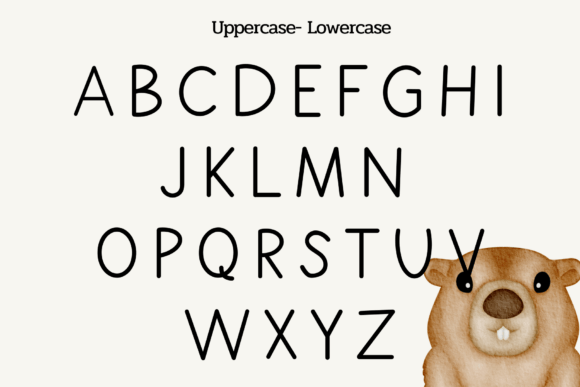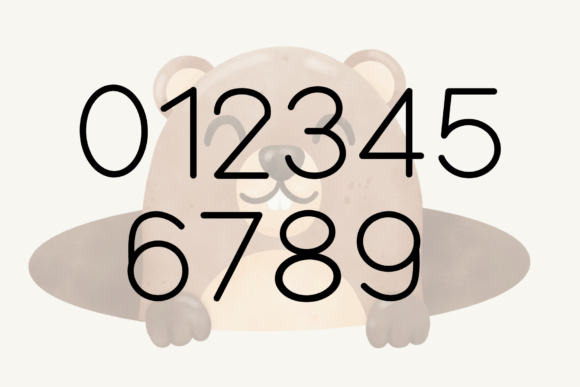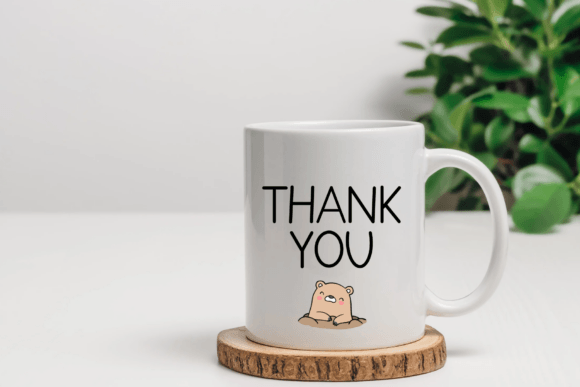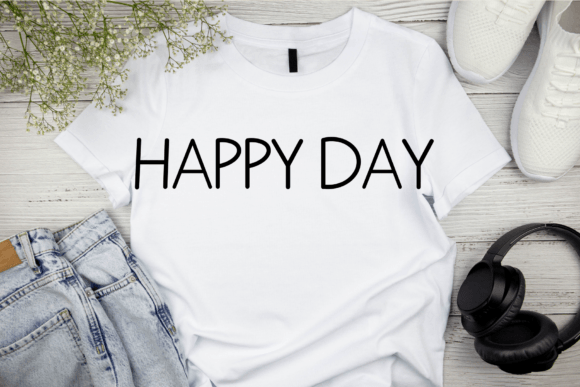
Celebrate Seasonal Charm with Groundhog Day Font
Are you looking for a font that can add a touch of whimsy and playfulness to your designs? Look no further than the Groundhog Day Font! This clean and playful handwritten font is perfect for creating greeting cards, event posters, classroom materials, and other creative designs with a fun and approachable vibe.
What is Groundhog Day Font?
Groundhog Day Font is a unique and charming font that features rounded, friendly letterforms. Its playful and approachable design makes it perfect for a variety of creative projects, from seasonal greeting cards to educational materials. The font is designed to bring a touch of whimsy and fun to your designs, making it ideal for crafters, designers, and educators.
Characteristics of Groundhog Day Font
The Groundhog Day Font has several characteristics that make it stand out from other fonts. Some of its key features include:
- Rounded letterforms: The font features rounded, friendly letterforms that give it a playful and approachable vibe.
- Clean design: The font has a clean and simple design that makes it easy to read and use in a variety of creative projects.
- Handwritten style: The font has a handwritten style that gives it a personal and unique touch.
- Versatile: The font is versatile and can be used in a variety of creative projects, from greeting cards to educational materials.
Uses of Groundhog Day Font
The Groundhog Day Font is perfect for a variety of creative projects, including:
- Greeting cards: The font is perfect for creating seasonal greeting cards, such as Groundhog Day, Valentine’s Day, and Christmas cards.
- Event posters: The font can be used to create eye-catching event posters for parties, festivals, and other events.
- Classroom materials: The font is ideal for creating educational materials, such as worksheets, posters, and activity sheets.
- Creative designs: The font can be used to create a variety of creative designs, such as social media graphics, blog posts, and website headers.
Benefits of Using Groundhog Day Font
Using the Groundhog Day Font in your creative projects has several benefits, including:
- Adds a touch of whimsy: The font adds a touch of whimsy and playfulness to your designs, making them more engaging and fun.
- Easy to read: The font is easy to read, making it perfect for use in educational materials and other designs where readability is important.
- Versatile: The font is versatile and can be used in a variety of creative projects.
- Unique: The font has a unique and charming design that sets it apart from other fonts.
Tips for Using Groundhog Day Font
Here are some tips for using the Groundhog Day Font in your creative projects:
- Use it for seasonal designs: The font is perfect for creating seasonal designs, such as Groundhog Day, Valentine’s Day, and Christmas designs.
- Experiment with colors: The font looks great in a variety of colors, so don’t be afraid to experiment and find the perfect color for your design.
- Pair it with other fonts: The font can be paired with other fonts to create a unique and interesting design.
- Use it for kid-friendly designs: The font is perfect for use in kid-friendly designs, such as children’s books, activity sheets, and educational materials.
The Groundhog Day Font is a unique and charming font that is perfect for adding a touch of whimsy and playfulness to your designs. Its rounded, friendly letterforms and clean design make it easy to read and use in a variety of creative projects. Whether you’re a crafter, designer, or educator, the Groundhog Day Font is a great choice for your next project. So why not give it a try and see how it can bring a touch of seasonal charm to your designs!